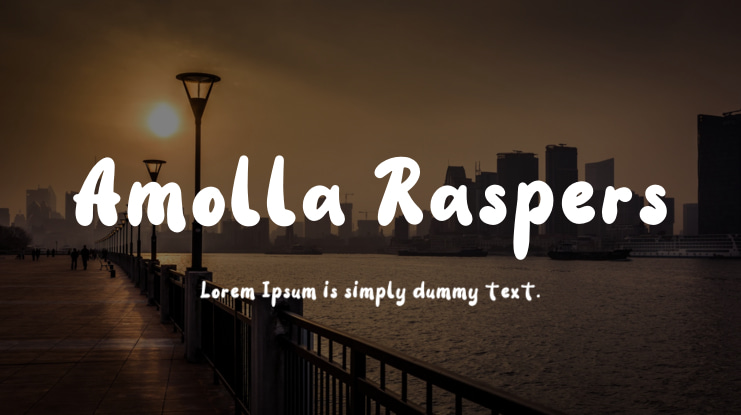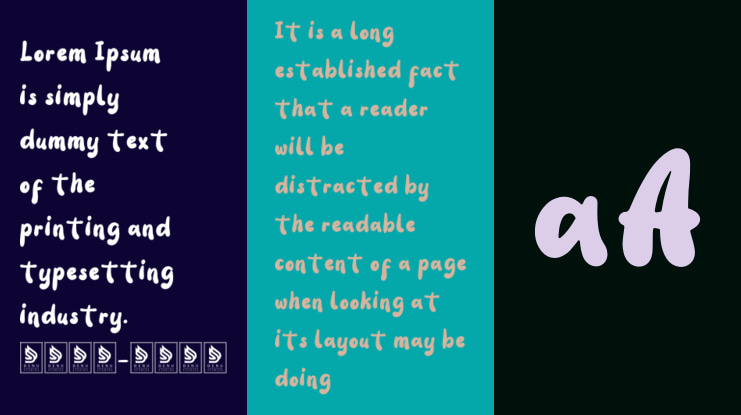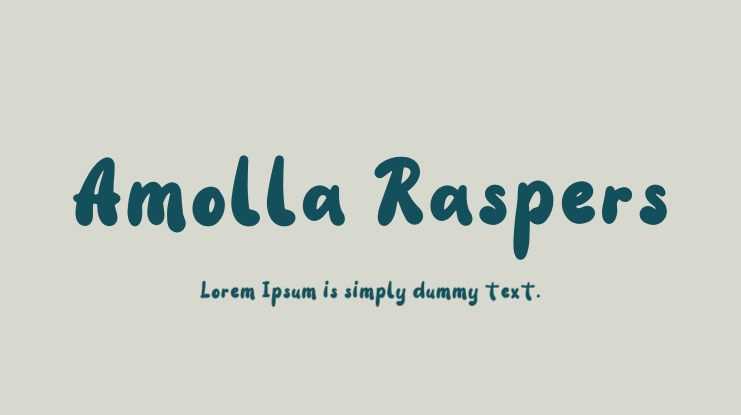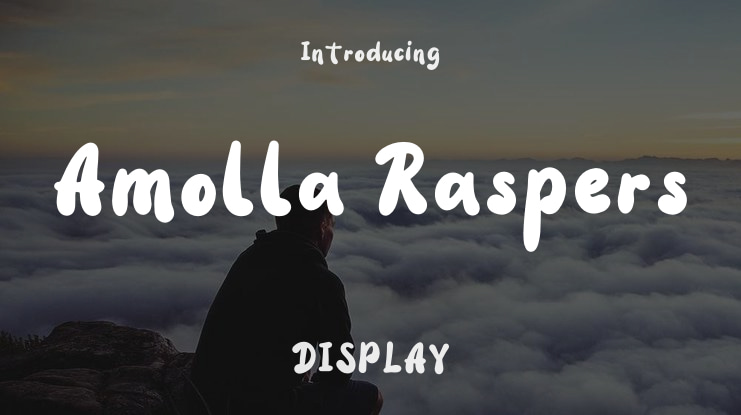
Amolla Raspers Font
Amolla Raspers | Bubble Type Handwriting is suitable for a variety of projects, including logos, branding, homeware designs, product packaging, mugs, quotes, posters, shopping bags, t-shirts, book covers, name cards, invitation cards, greeting cards, labels, photography, watermarks, special events, and any other projects that require a Bubble Type Handwriting style.